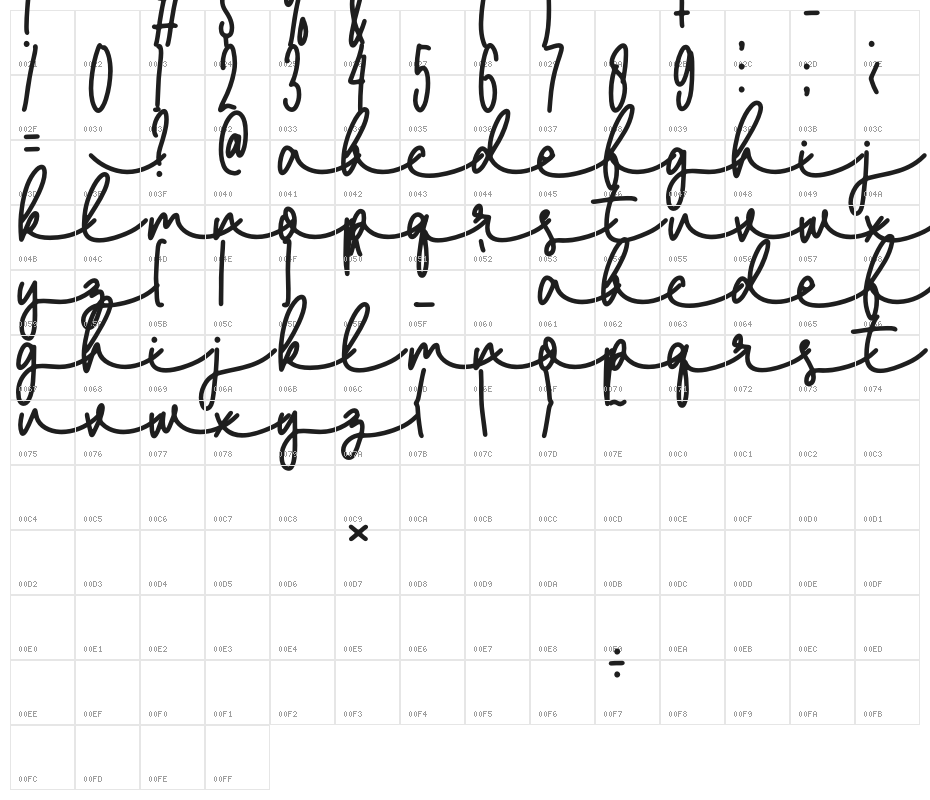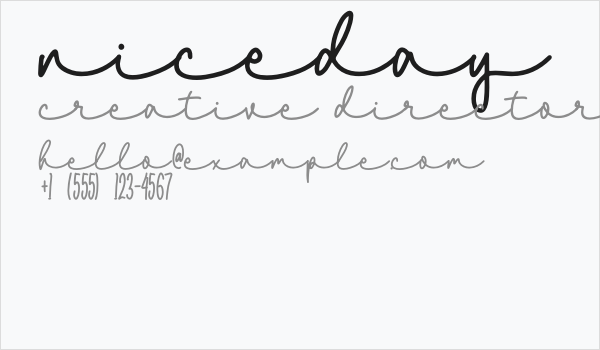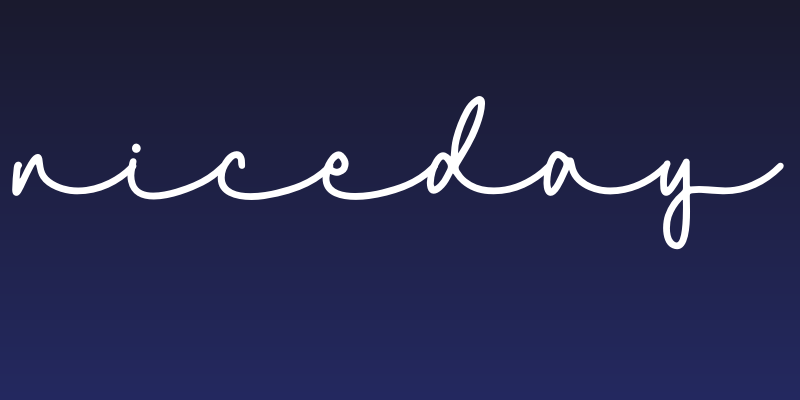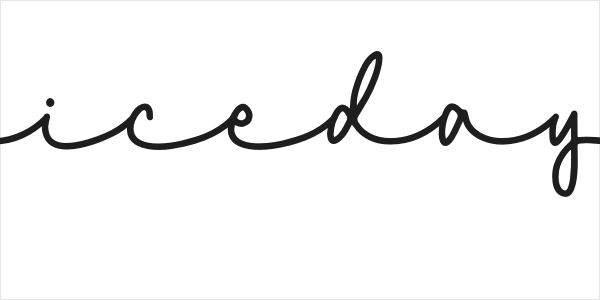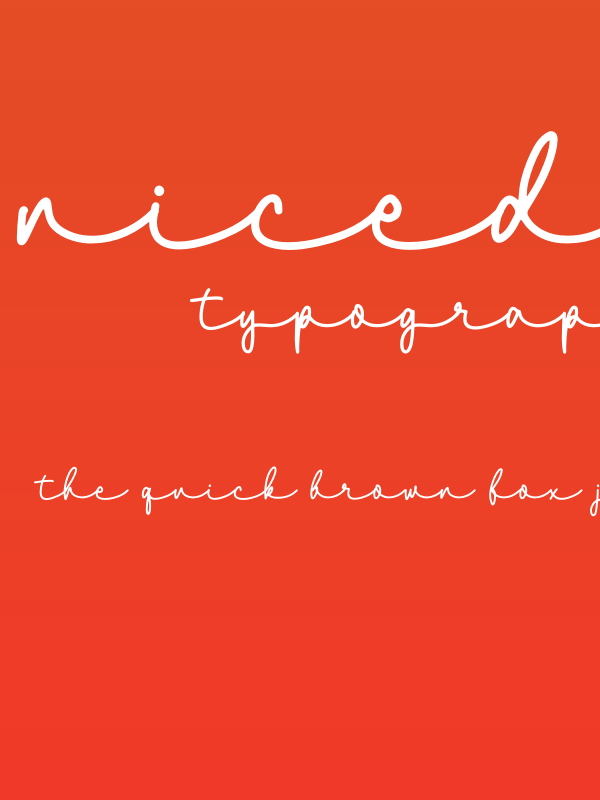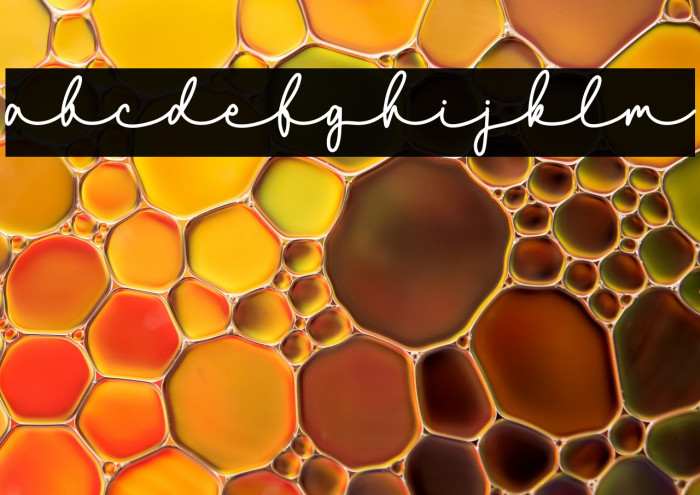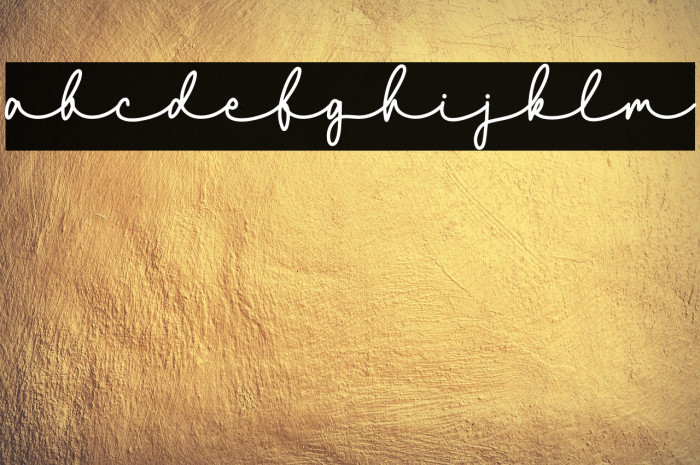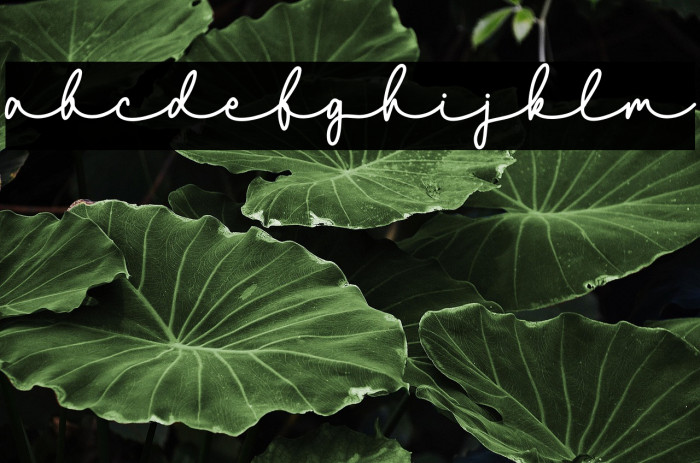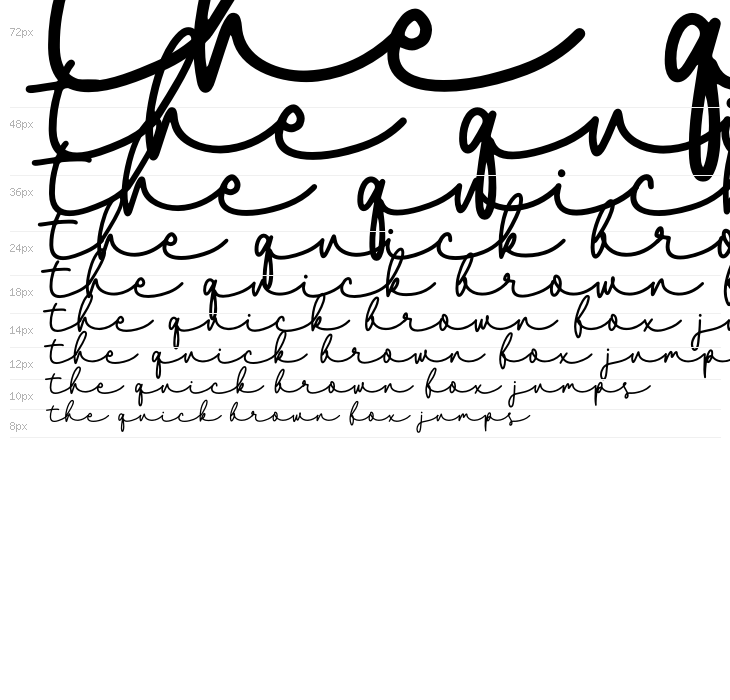
niceday Font
niceday Description
This font features a charming handwritten style with smooth, flowing lines that create a sense of elegance and fluidity. The lowercase letters are connected, giving it a cursive appearance, while maintaining readability. The characters have a consistent stroke width, contributing to a harmonious and balanced look. The numerals and special characters are bold and distinctive, adding a playful contrast to the delicate script of the letters. This font is ideal for projects that require a personal touch, such as invitations, greeting cards, or branding materials.
| Overall Style | Elegant, Personal |
| Proposed Projects | Ideal for invitations, greeting cards, branding materials, and personal notes. |